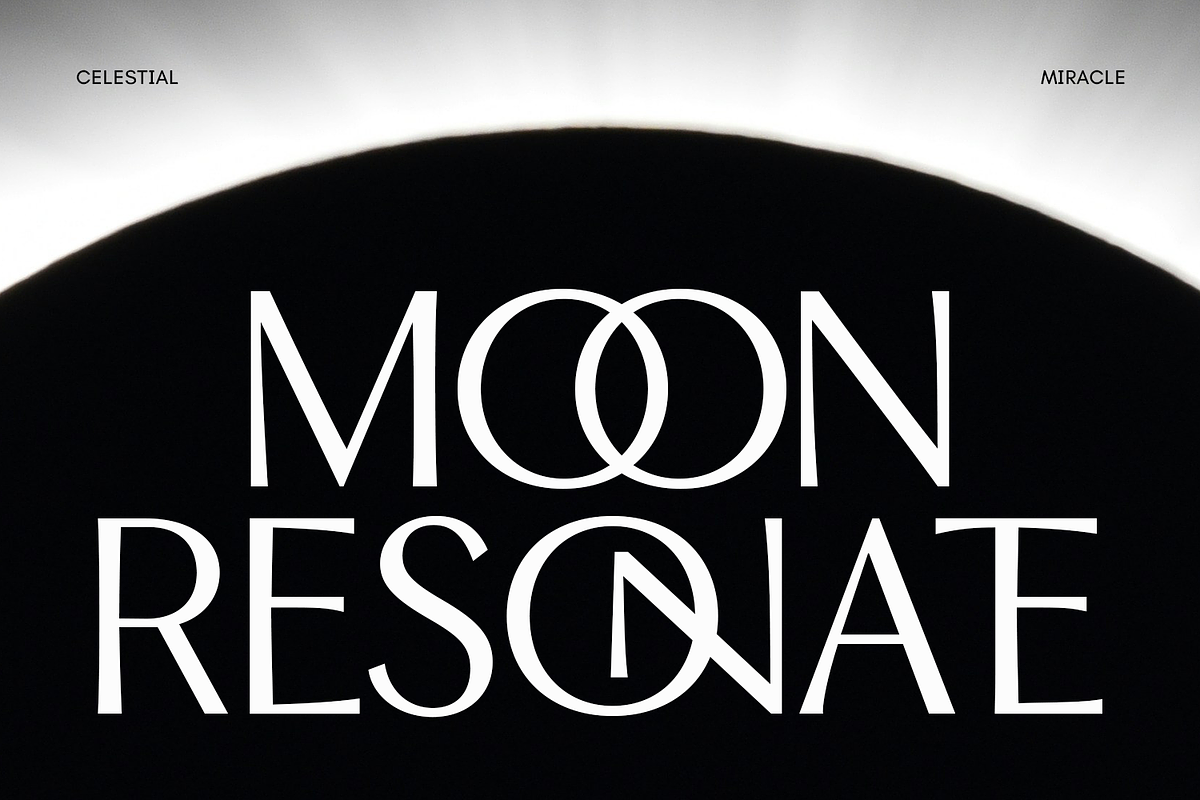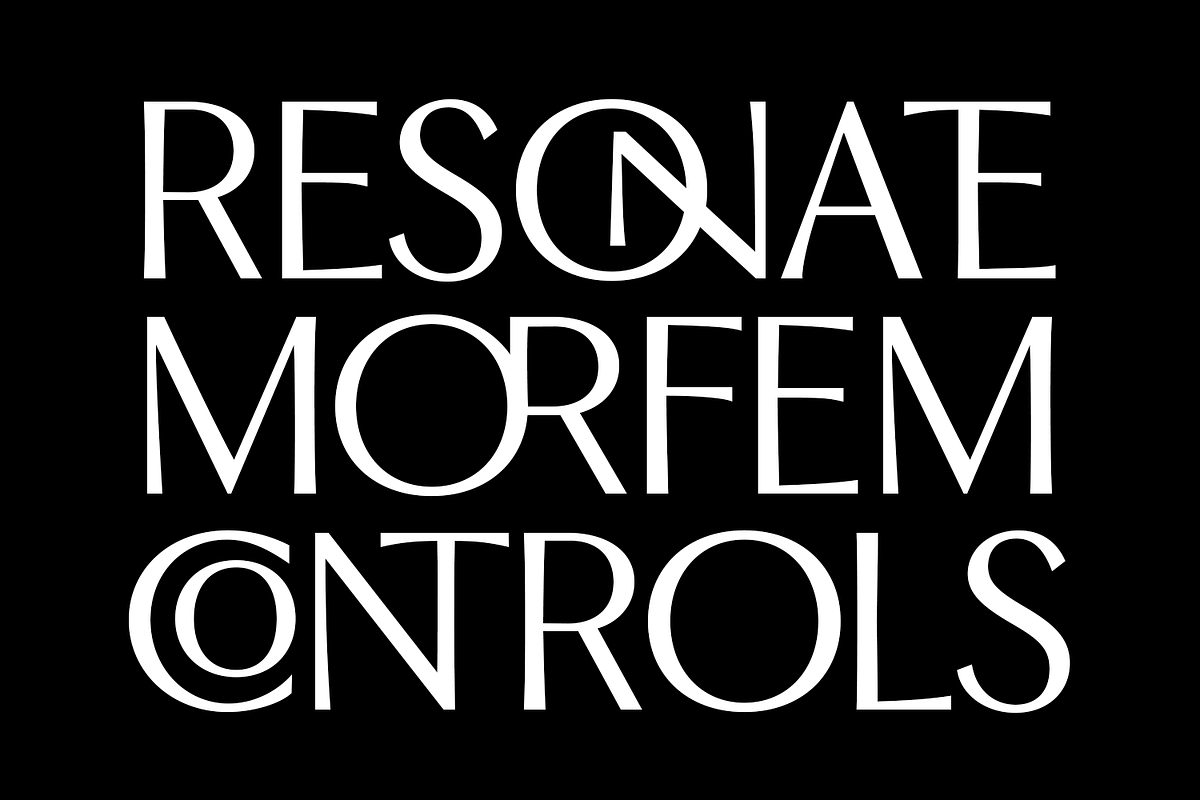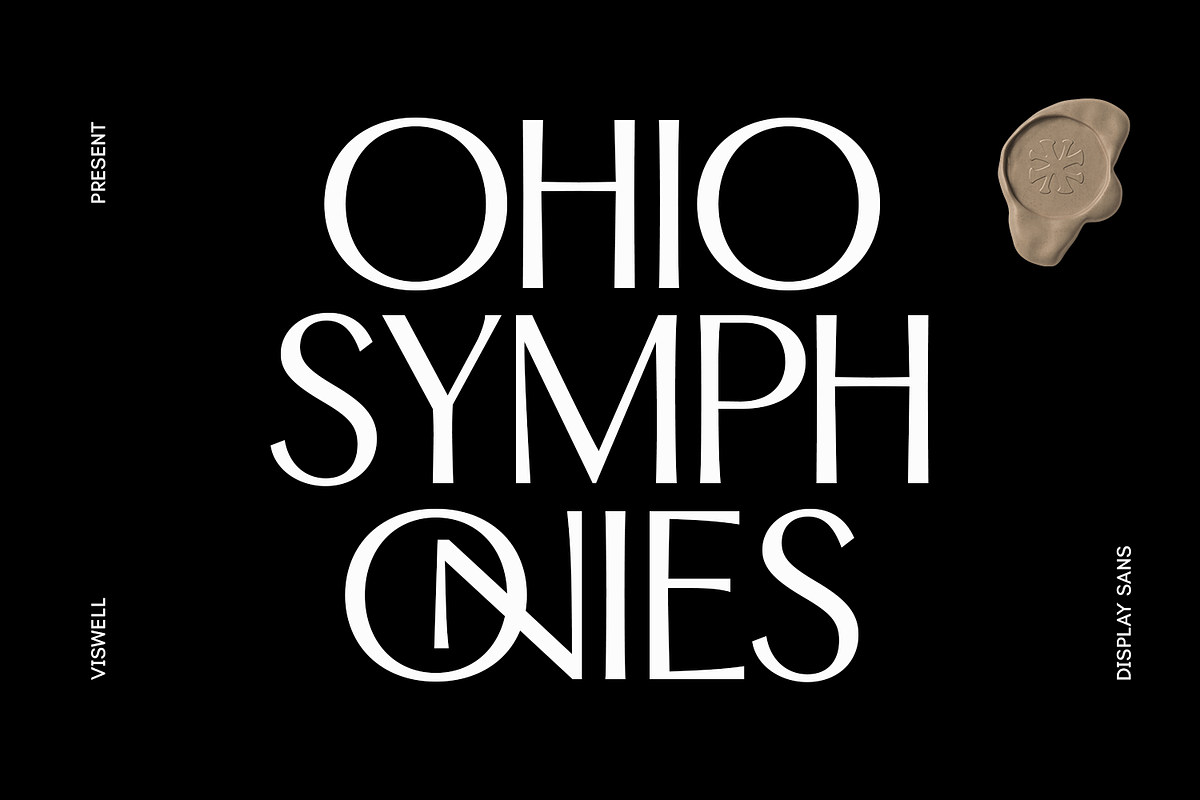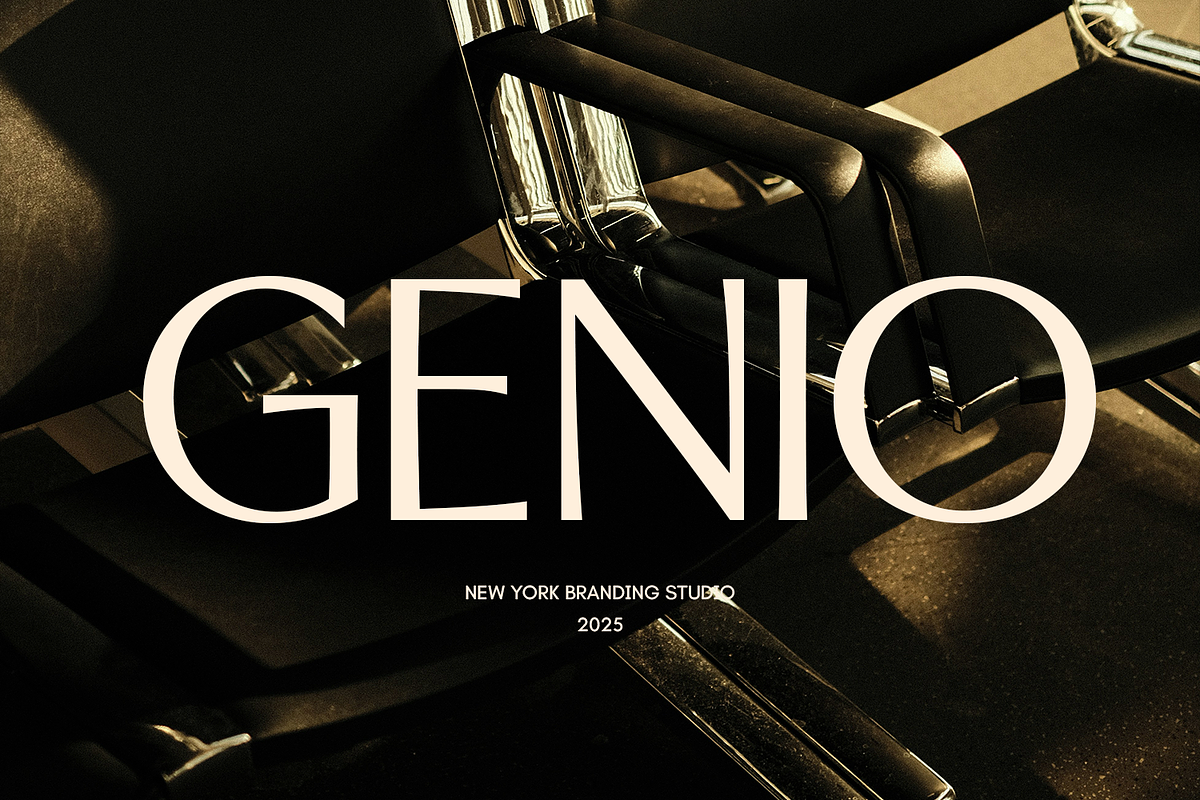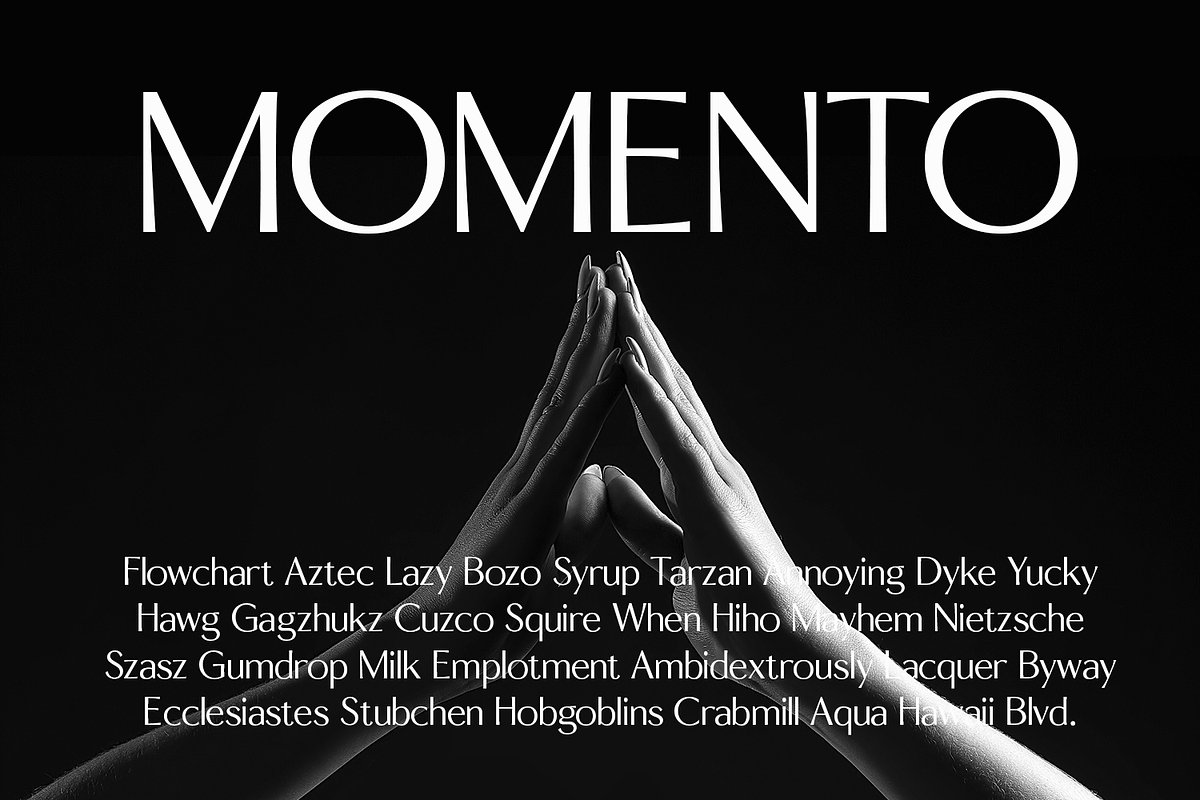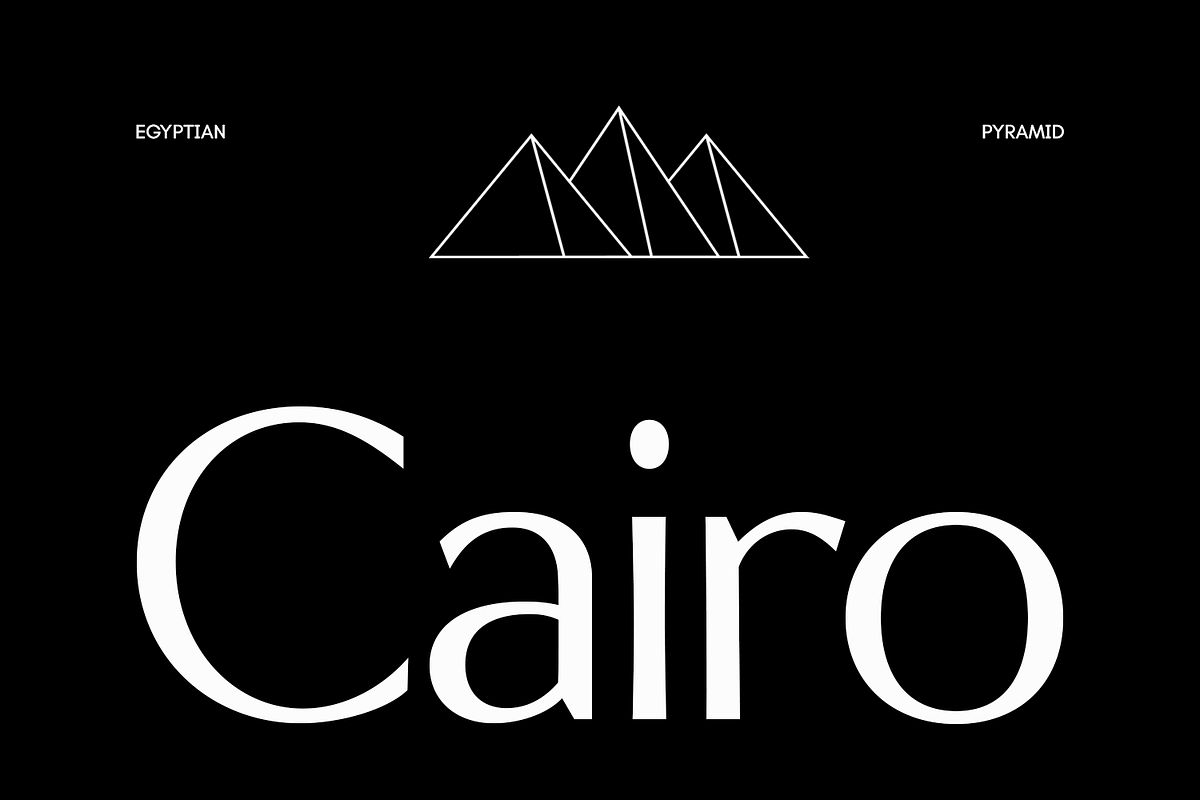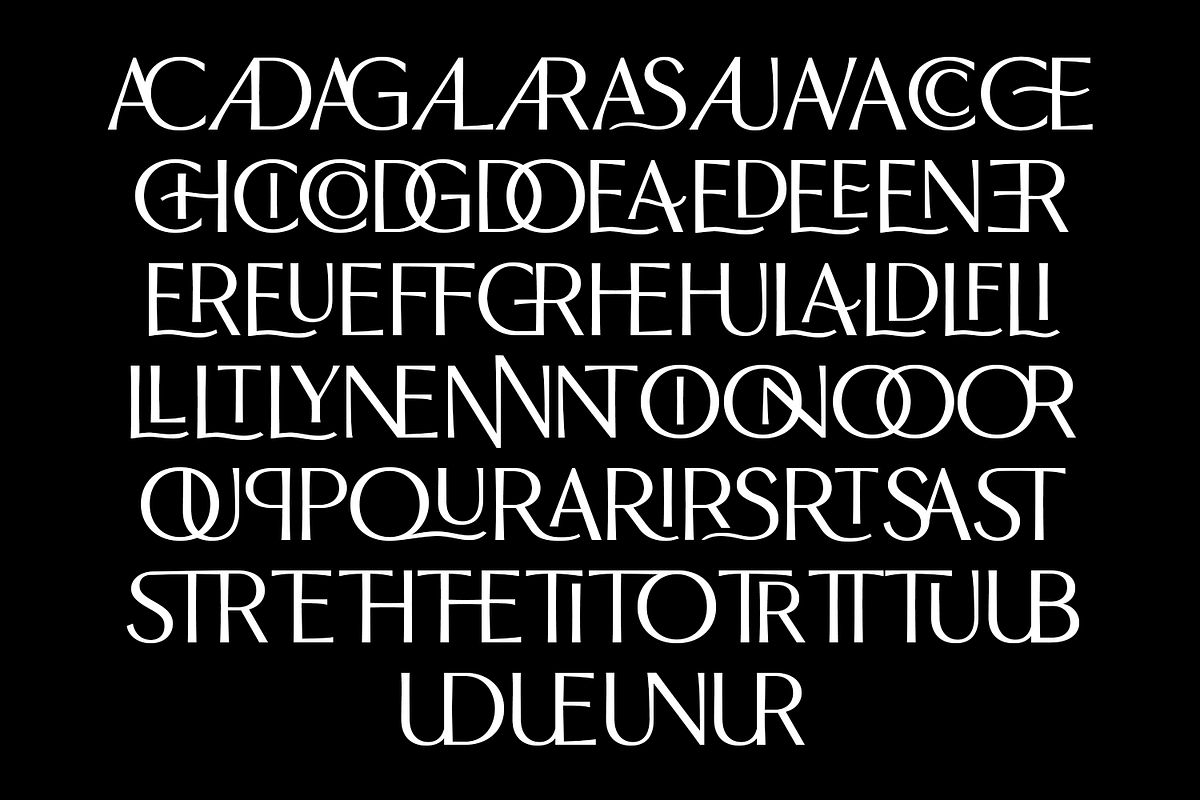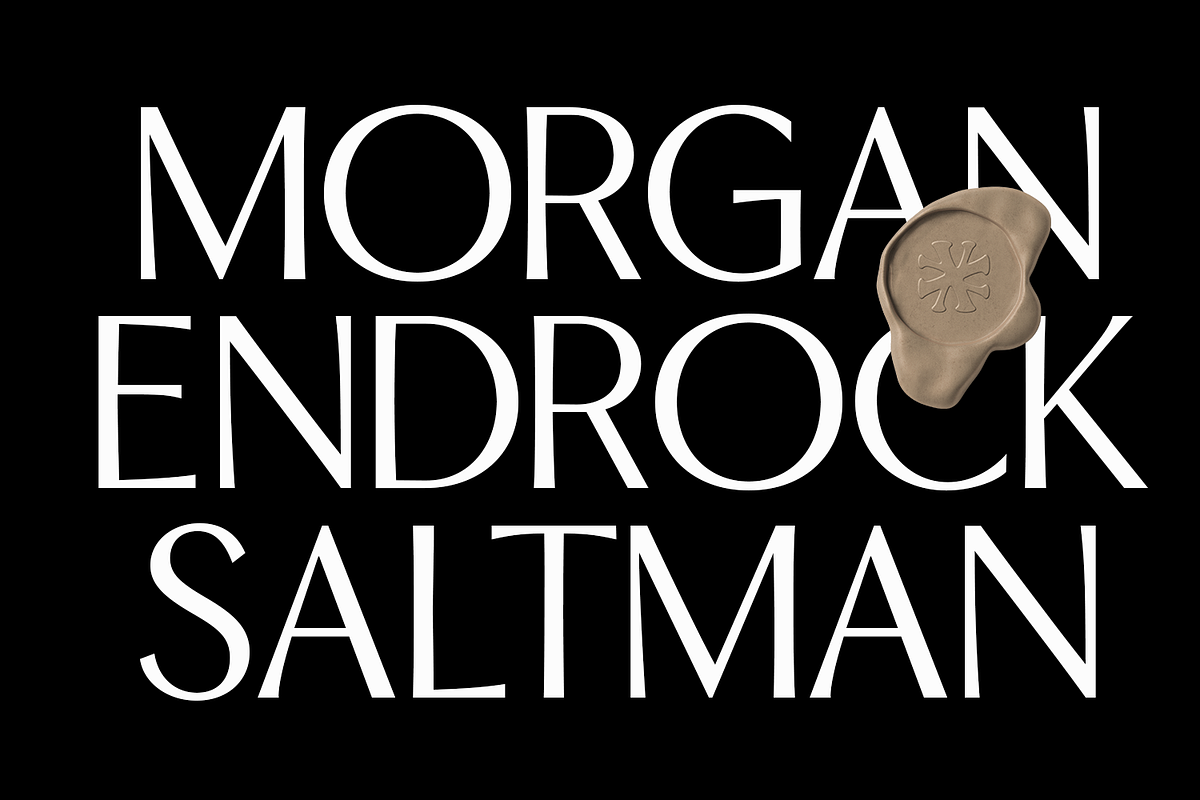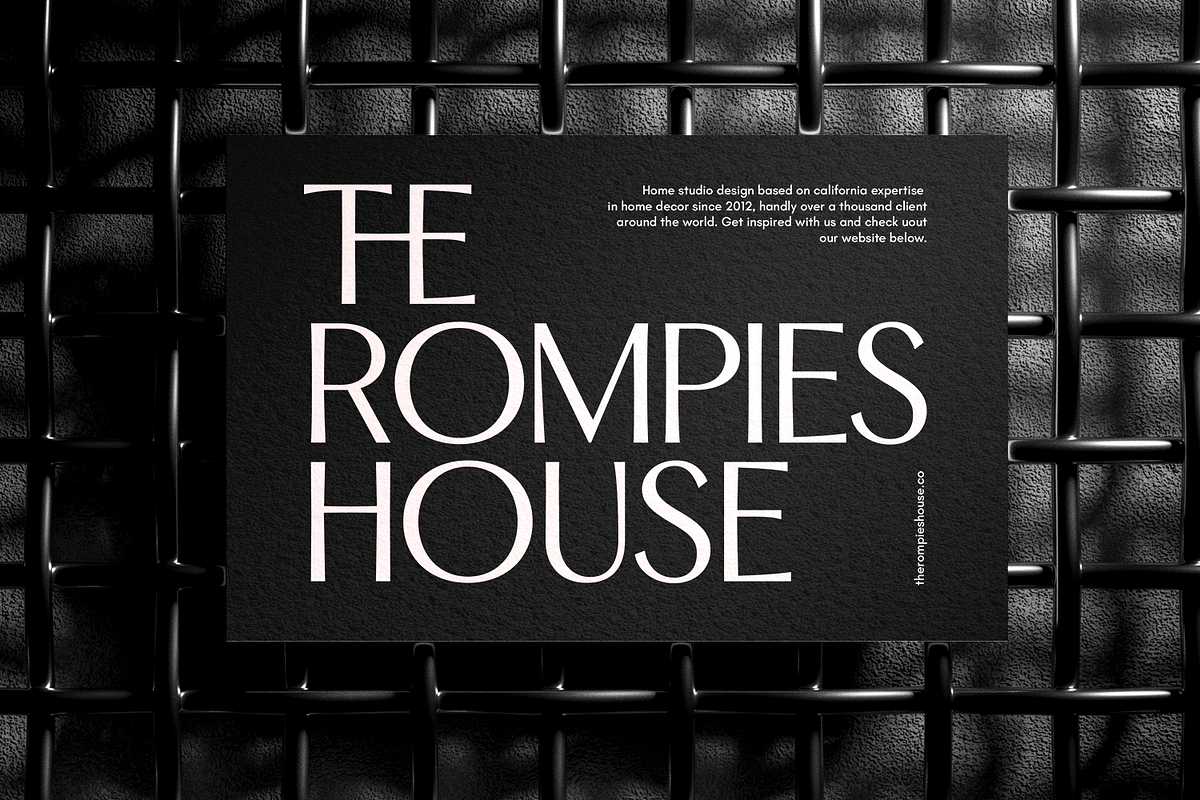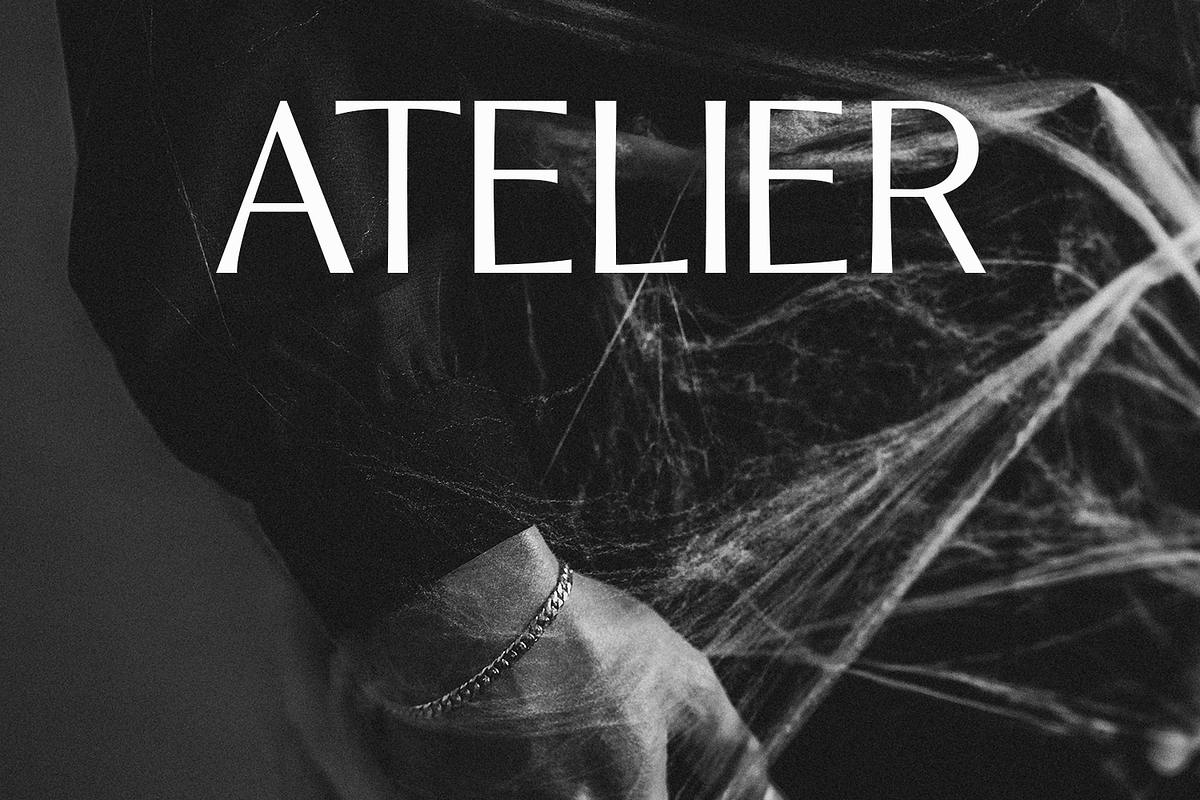
Ohio Symphonies Minimalist Sans
Ohio Symphonies is a refined display sans, crafted with a perfect balance between modern geometry and artistic rhythm. Its tall, narrow letterforms and elegant curves evoke a sense of motion and sophistication, making it ideal for branding, editorial titles, posters, and luxury design projects that seek both modern clarity and expressive character. With carefully designed alternates, stylish ligatures, and multilingual support, Ohio Symphonies delivers a distinct visual harmony—bold, graceful, and timeless. Let your typography resonate with elegance and precision through Ohio Symphonies, where every letter feels like a note in perfect balance.